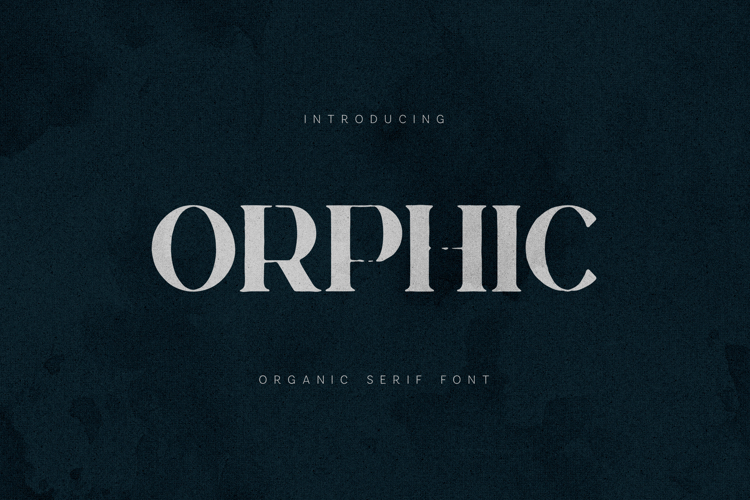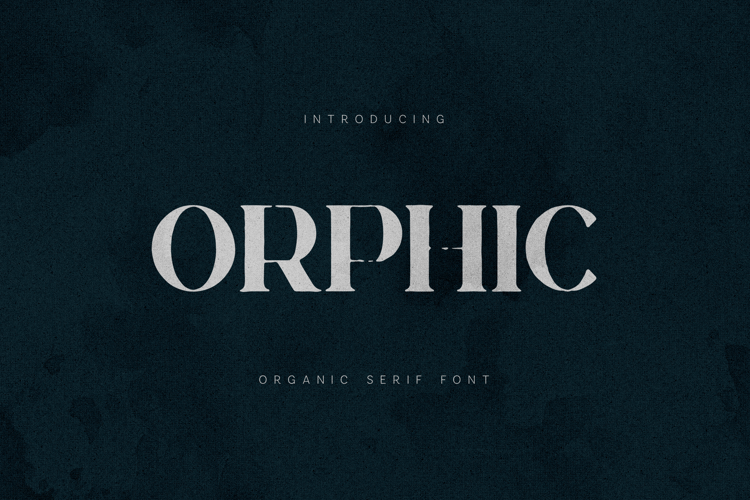
Orphic Serif Font Elegant Organic Modern
Orphic is a modern serif font with an elegant, organic character and refined contrast. Designed for premium branding and editorial use, it blends classic serif structure with a contemporary, slightly expressive feel.
With its unique letterforms and subtle imperfections, Orphic brings personality and sophistication to logos, fashion editorials, packaging, and high-end visual identities.
This font is perfect for designers looking to create timeless yet distinctive typography with a modern edge.
• Branding & logo design
• Editorial & magazine layouts
• Fashion & luxury projects
• Packaging design
• Social media visuals
• High-end typography
• Uppercase & lowercase letters
• Numbers & punctuation
• Elegant serif style
• Organic details & contrast